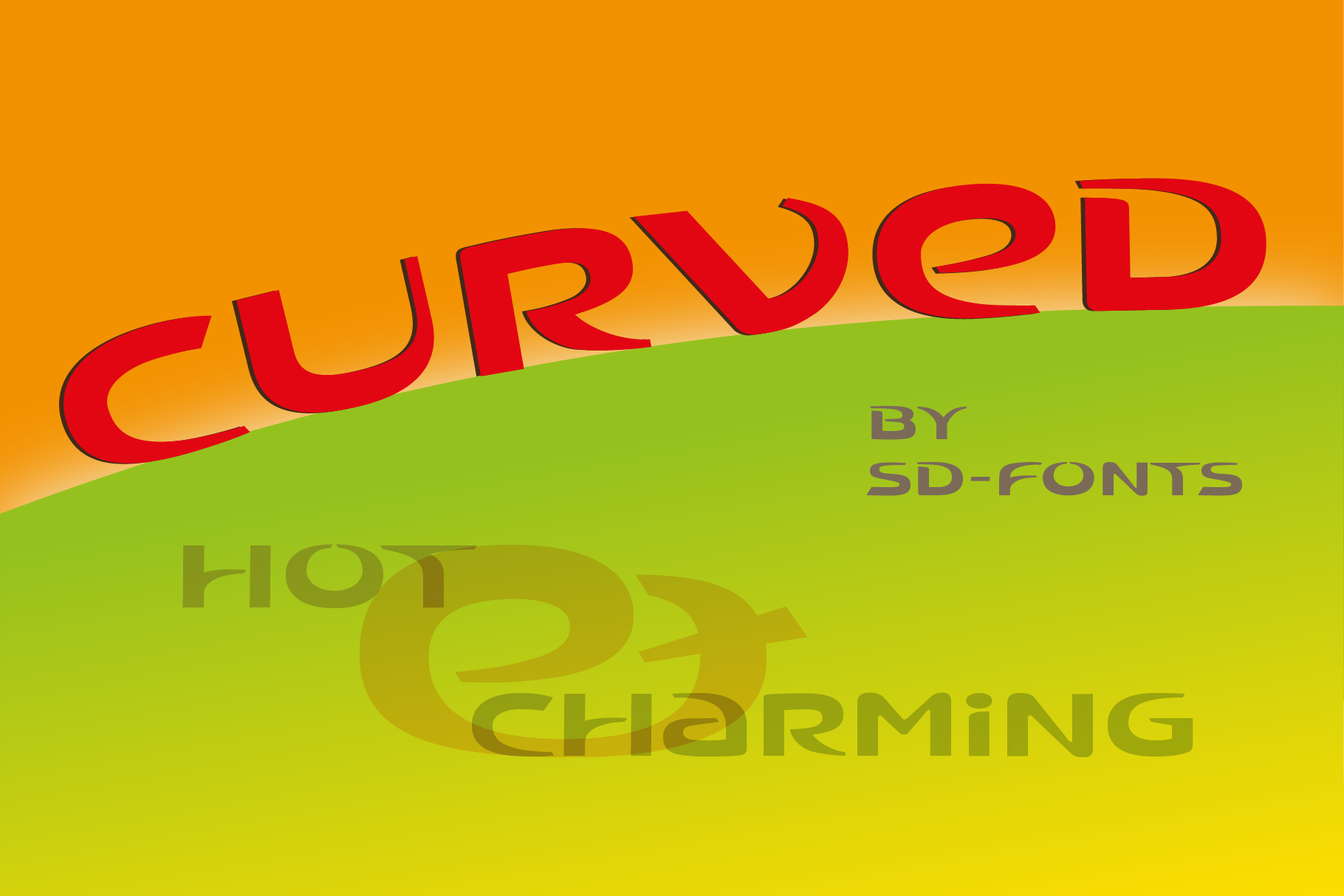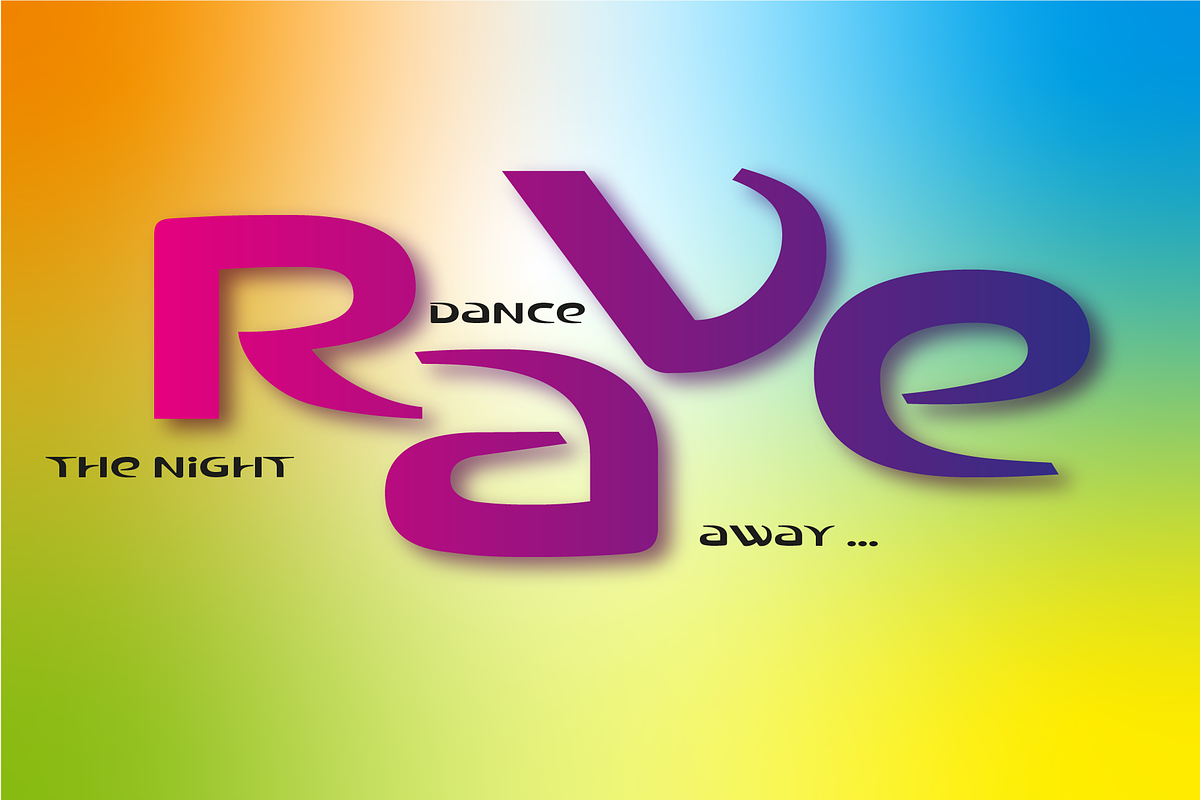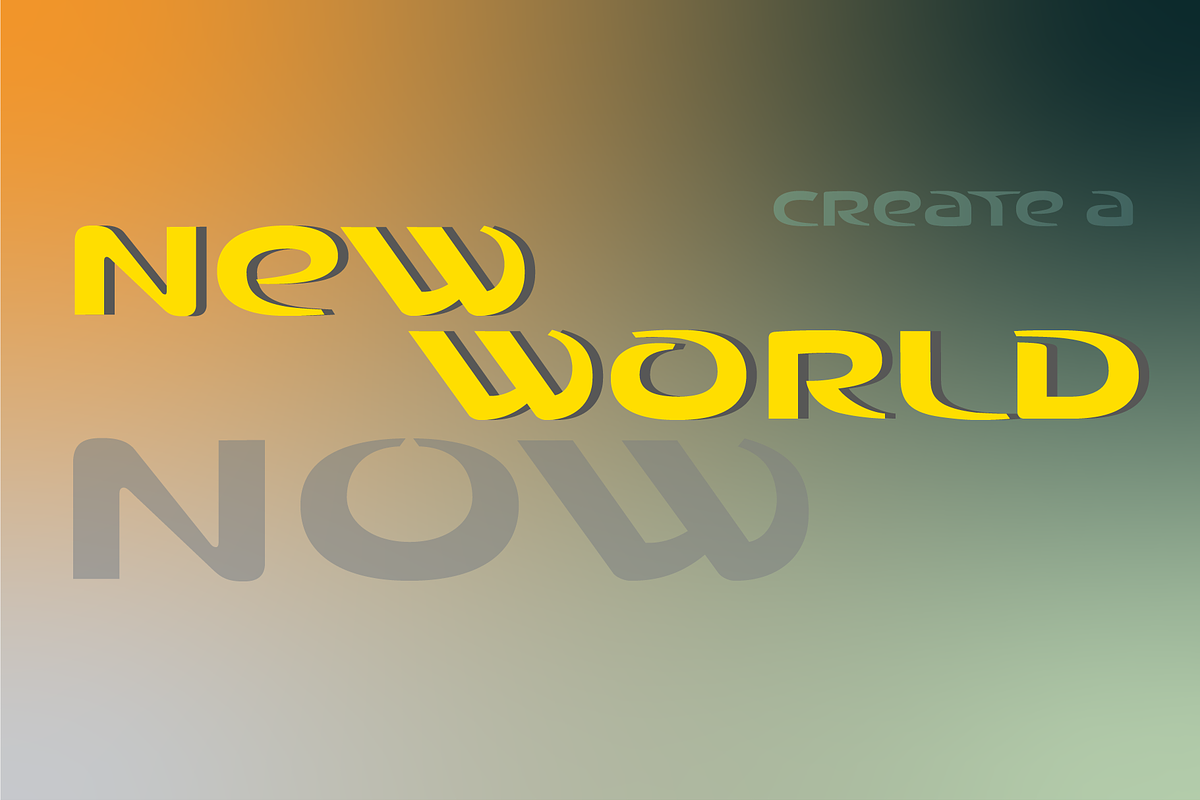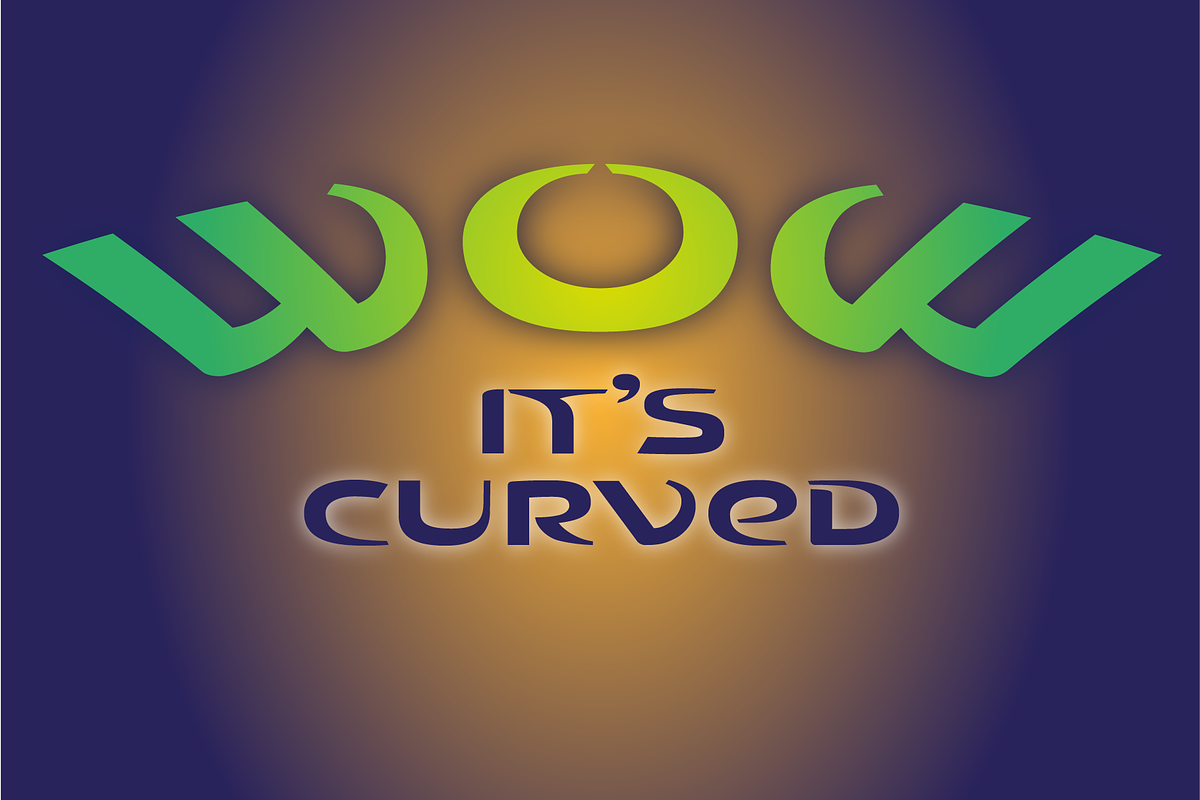
Curved–Dynamic Modern Display Font
A dynamic one case display font with a bold impression. It really boosts your message. First letters were created in 2018 for a logotype competition of the German graphic design magazine PAGE. They stayed with their old logo, though there were a lot of good proposals. Since it was to good for being dismissed, I decided to create a whole character set to see, what else it would be useful for. So, go get it and show me.